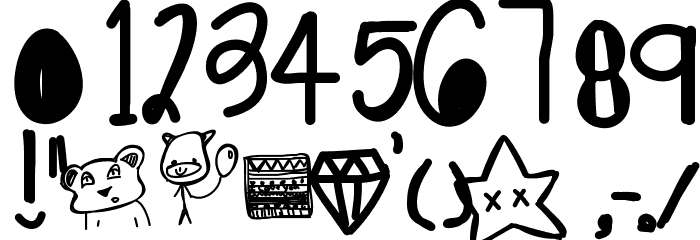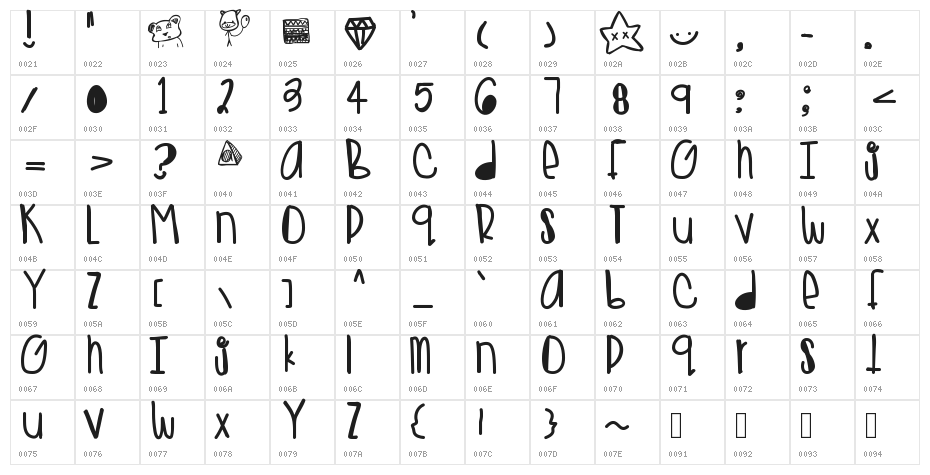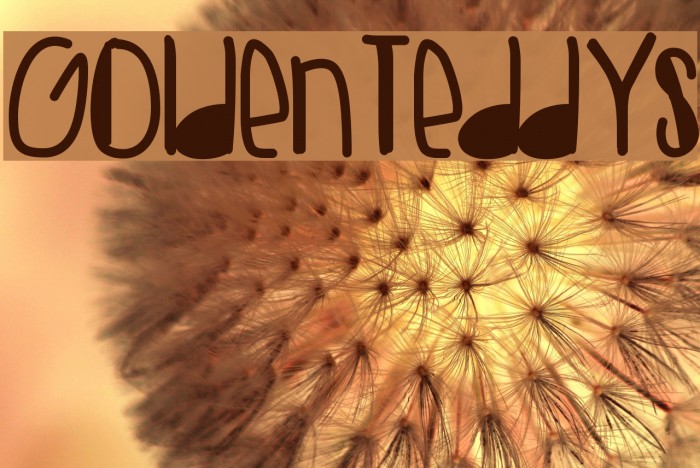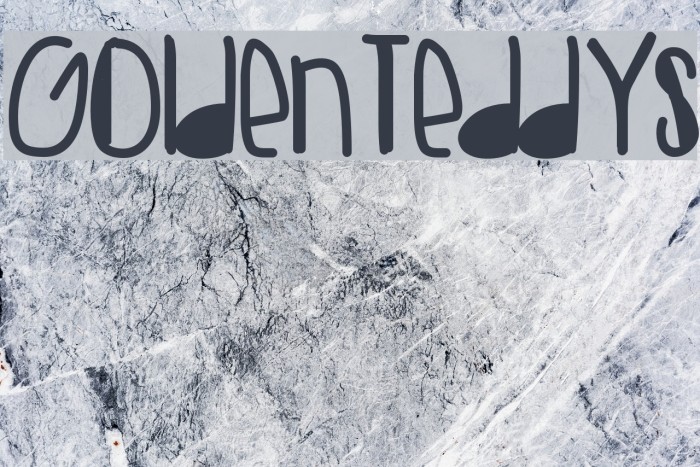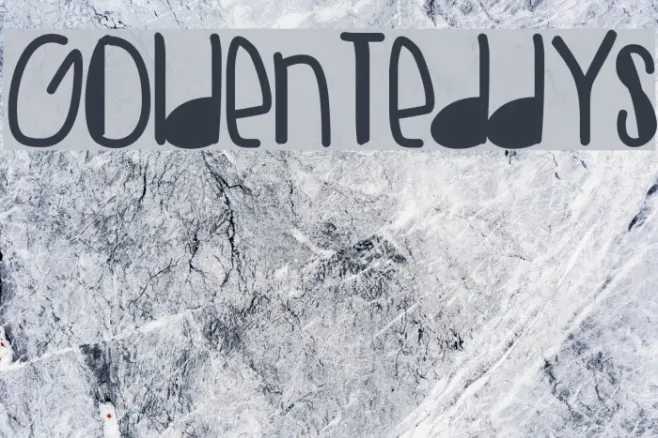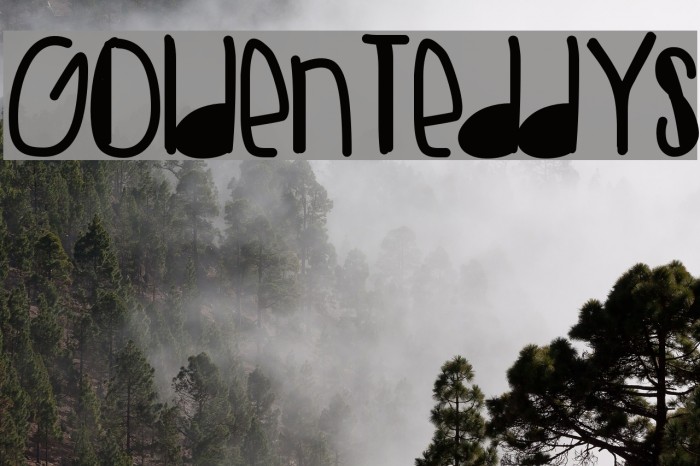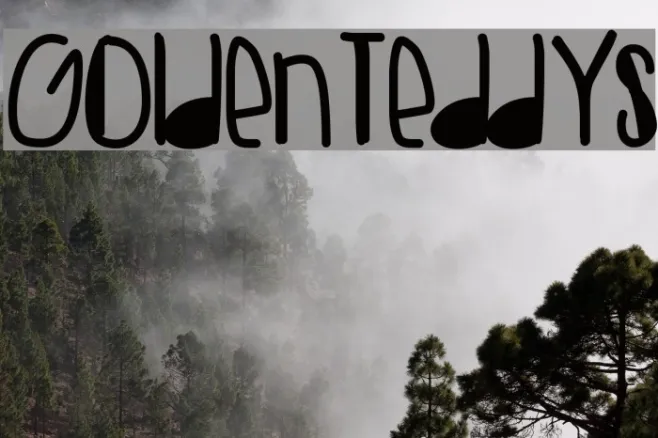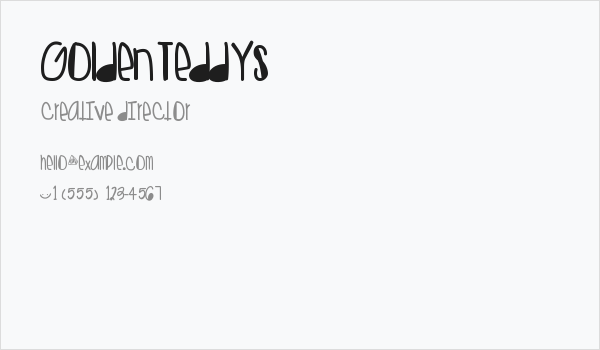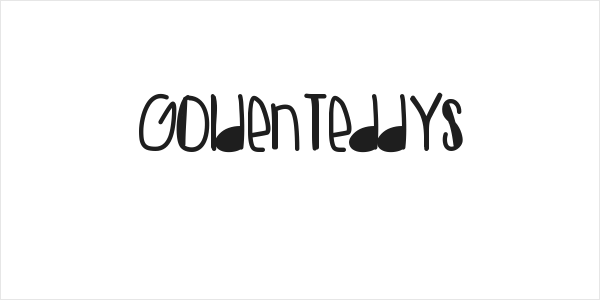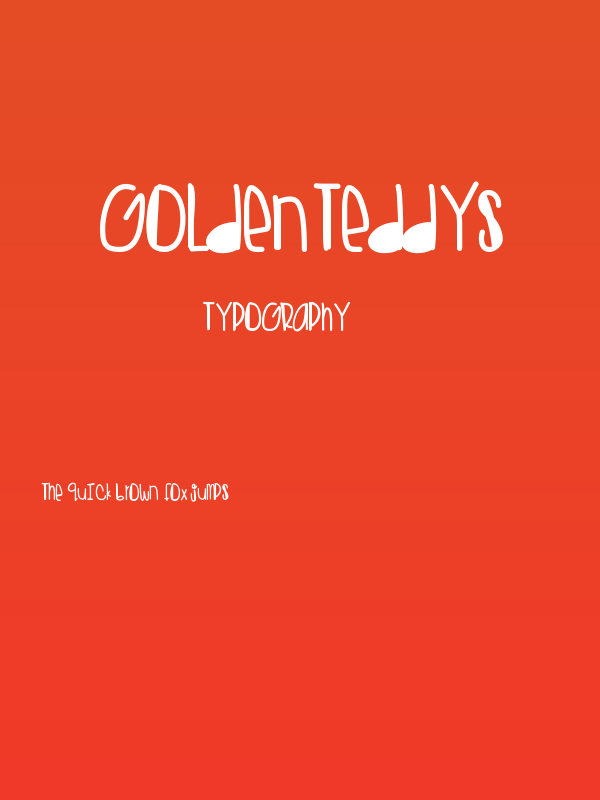
GoldenTeddys Font
GoldenTeddys Description
This playful and whimsical font features a hand-drawn style with a casual, friendly appearance. The letters are bold and rounded, with a slightly uneven baseline that adds to its charm. The uppercase and lowercase letters maintain a consistent style, with some characters featuring unique embellishments that enhance its playful nature. The numbers are similarly styled, with a bold, rounded look that complements the letters. Special characters include a mix of playful symbols, adding to the font's overall fun and informal vibe. This font is perfect for projects that require a touch of personality and creativity.
| Use Case | Logos, Posters, Greeting Cards |